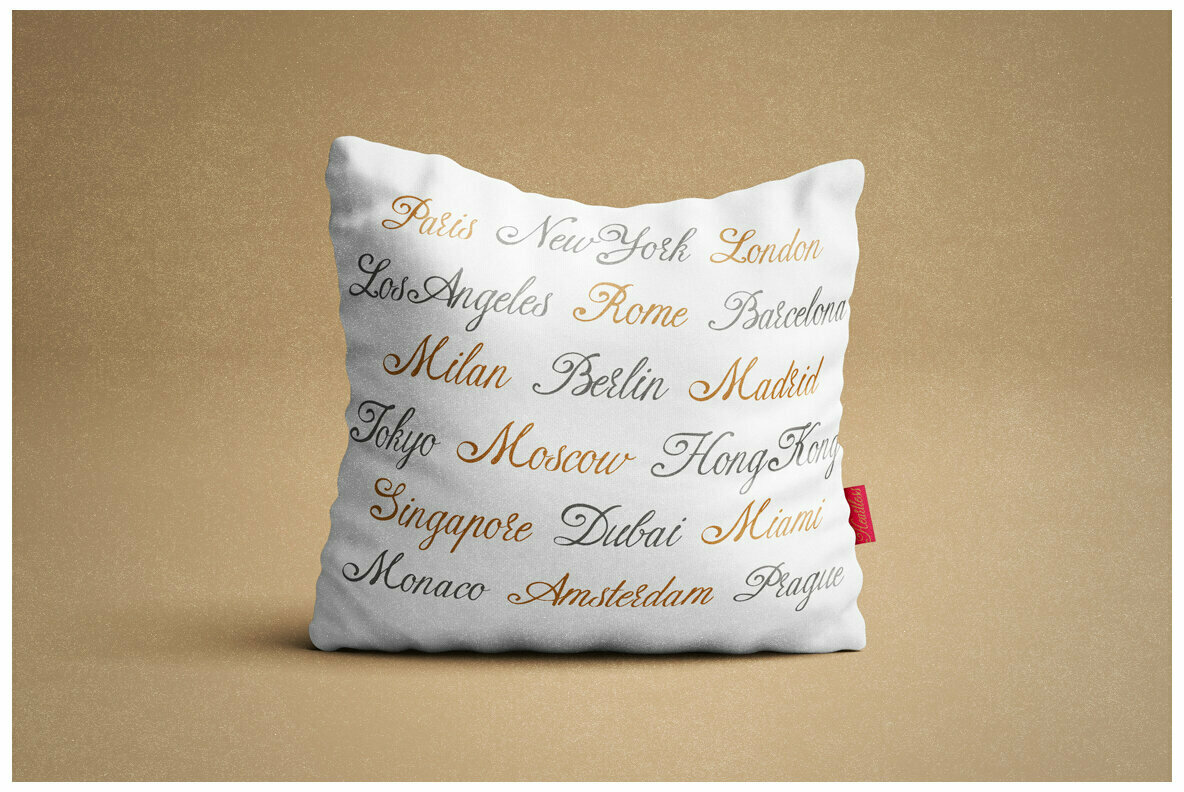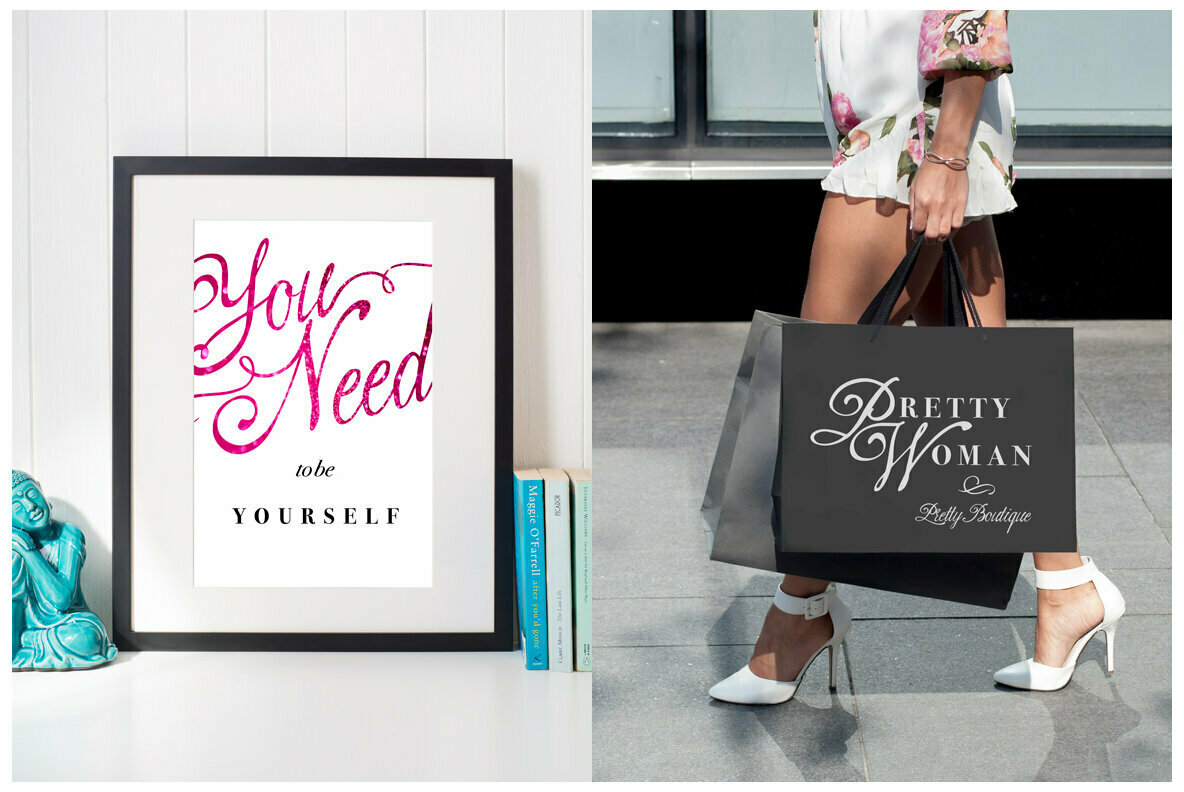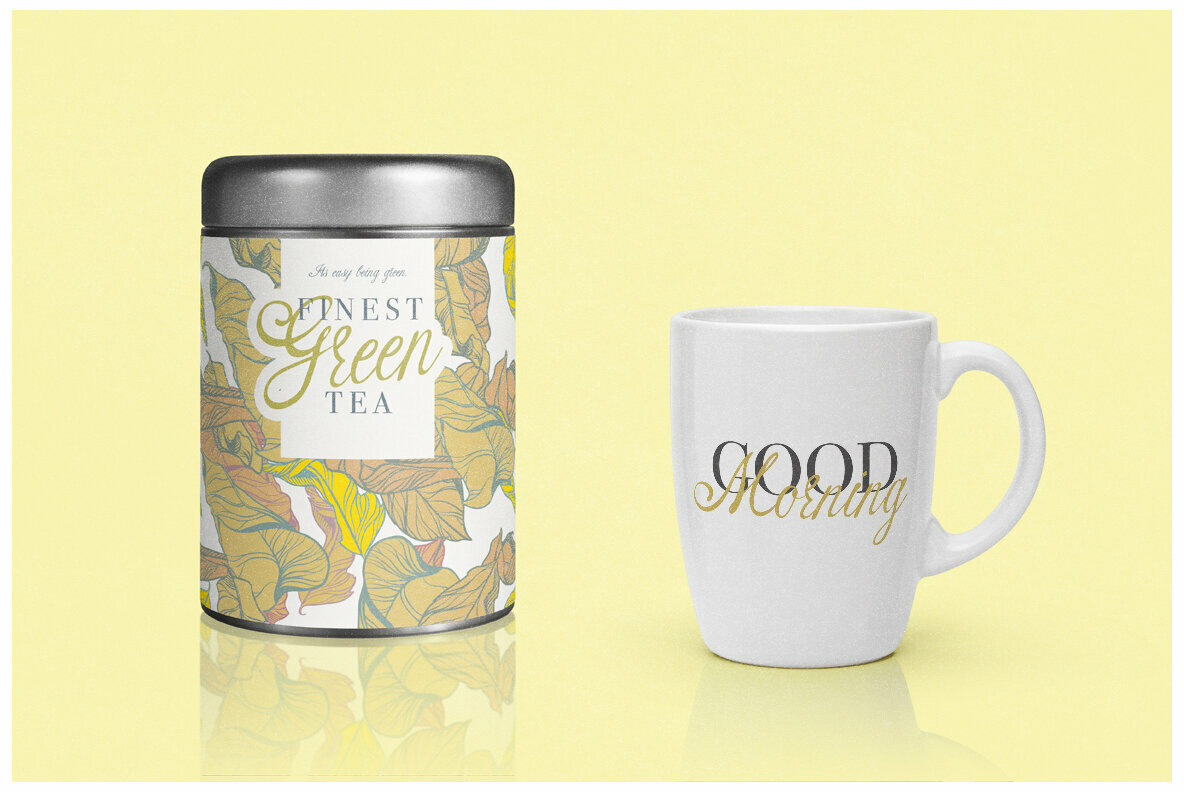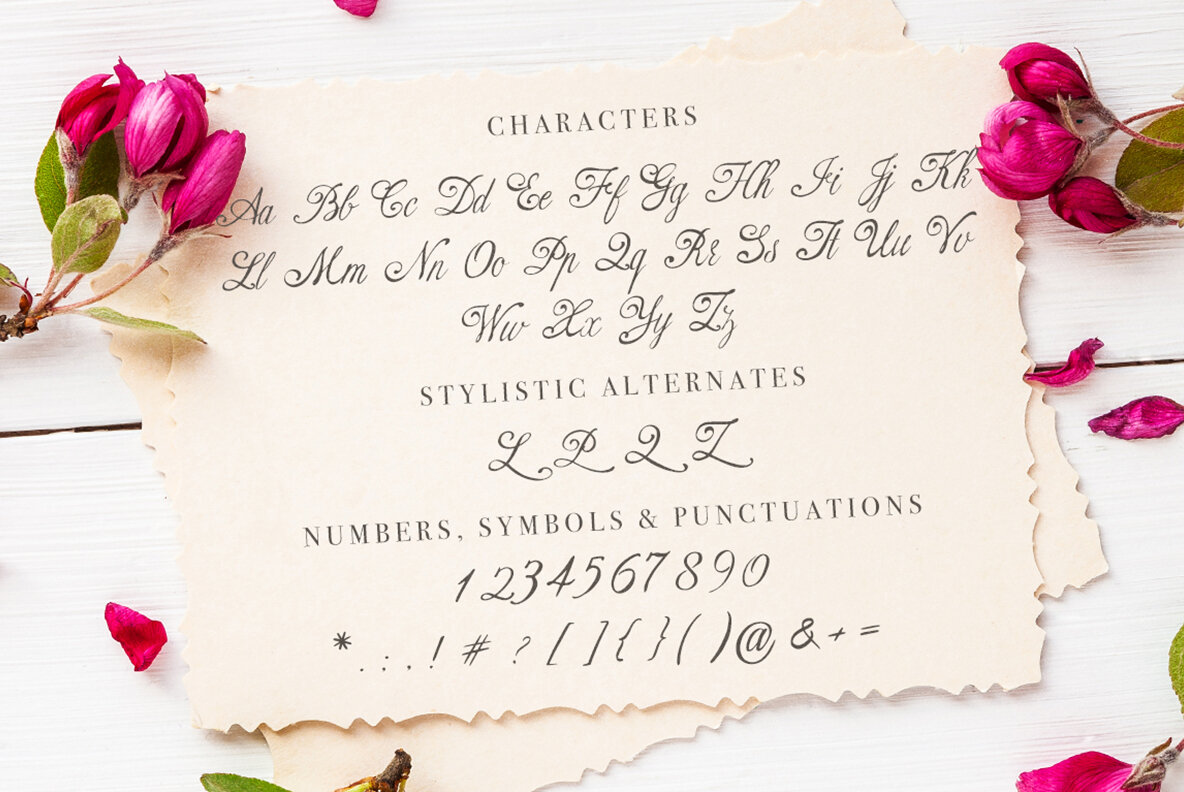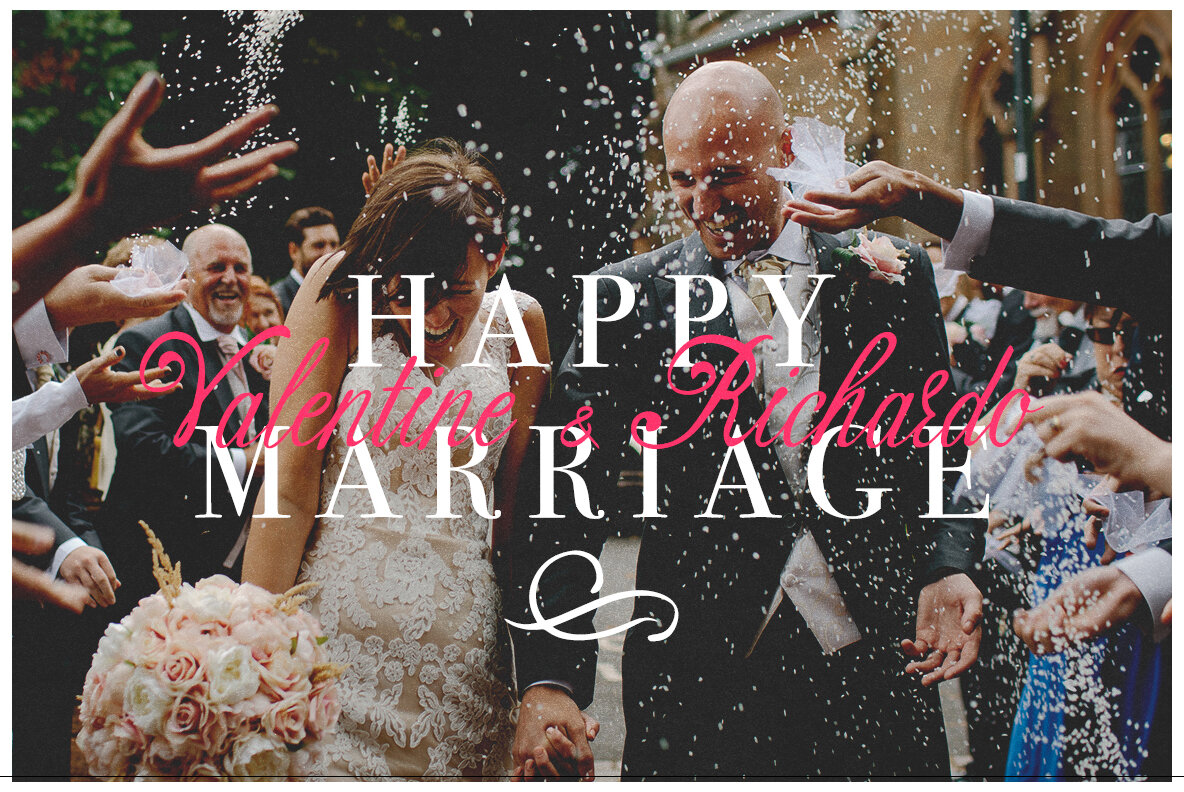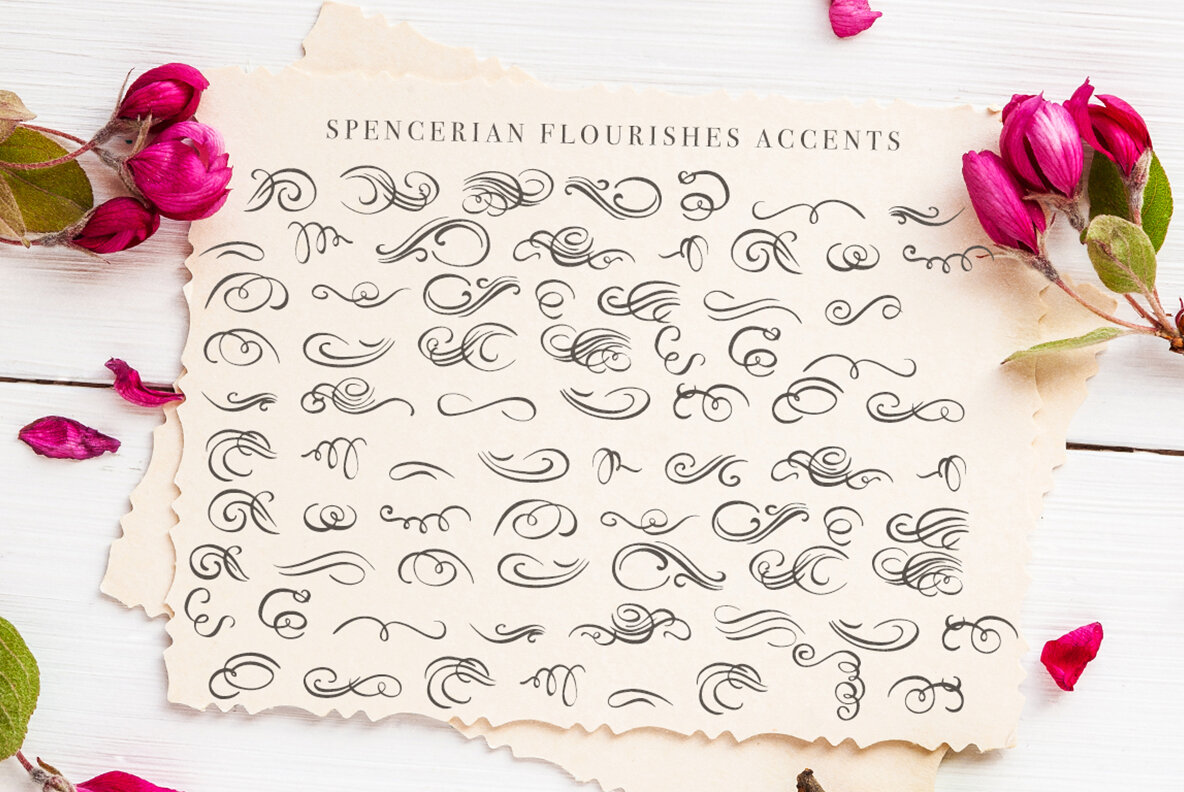
Heartless Font
Heartless by Maya captures the charm of handwritten calligraphy in a versatile script font. Designed with basic Latin letters, it offers a refined aesthetic ideal for weddings, events, and invitations. Its elegant strokes elevate headers and display elements, making it a perfect choice for logos, packaging, and greeting cards. This font is exclusively composed of single-language characters, which ensures a focused and cohesive design style. The inclusion of Spencerian flourishes adds a sophisticated touch, perfect for enhancing compositions with decorative accents.Heartless: Elegant Handwritten Calligraphy Script